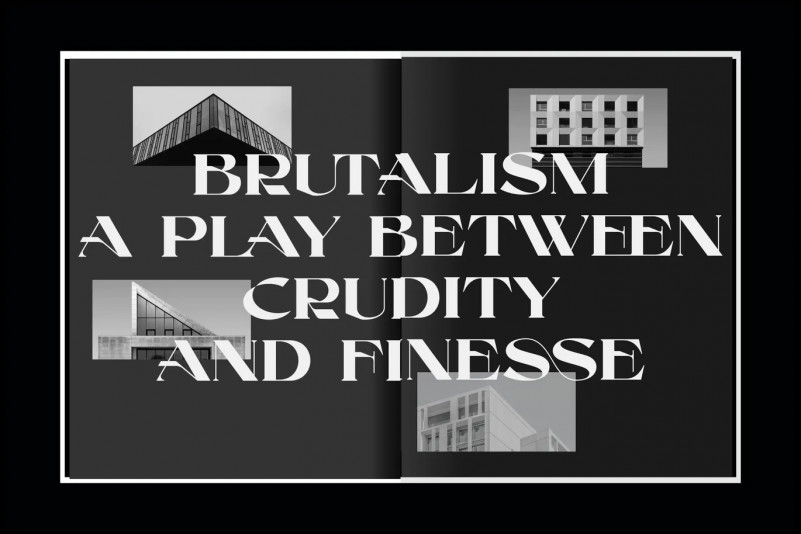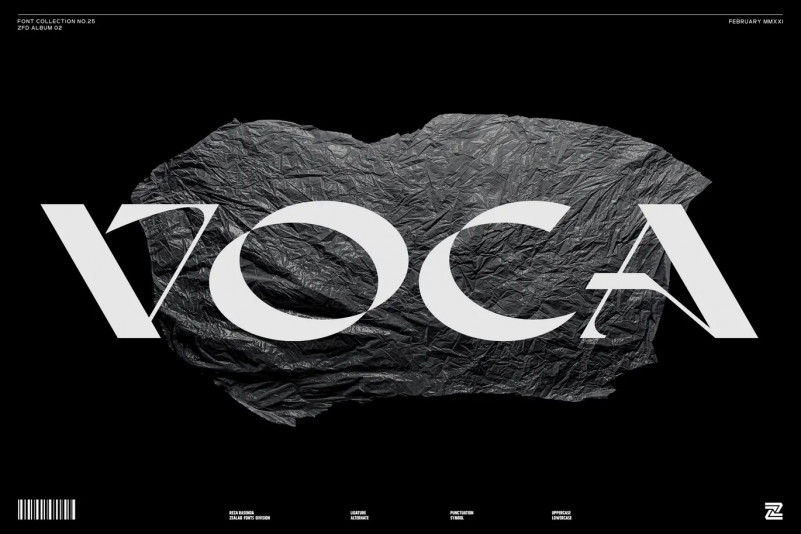
VOCA Font
VOCA is a versatile, bold and unique serif font. Combination between high contrast and Brutalism style, VOCA has a unique style with stylistics, alternation, ligatures and supports multilingual languages.
Create a unique and beautiful logotype, use it as a stylish solution for your next magazine layout, or choose VOCA for all graphics that require a stylish look with a stylish touch.